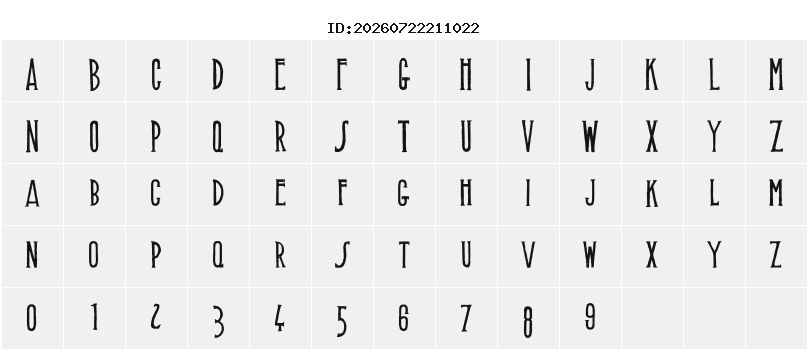
Muffaroo Preview
• Font Name: Muffaroo
• Full Font Name: Muffaroo
About Muffaroo.ttf
Muffaroo.ttf is a modern, elegant sans-serif font designed for ultimate readability and visual harmony. Perfect for branding, headlines, web design, and print materials.